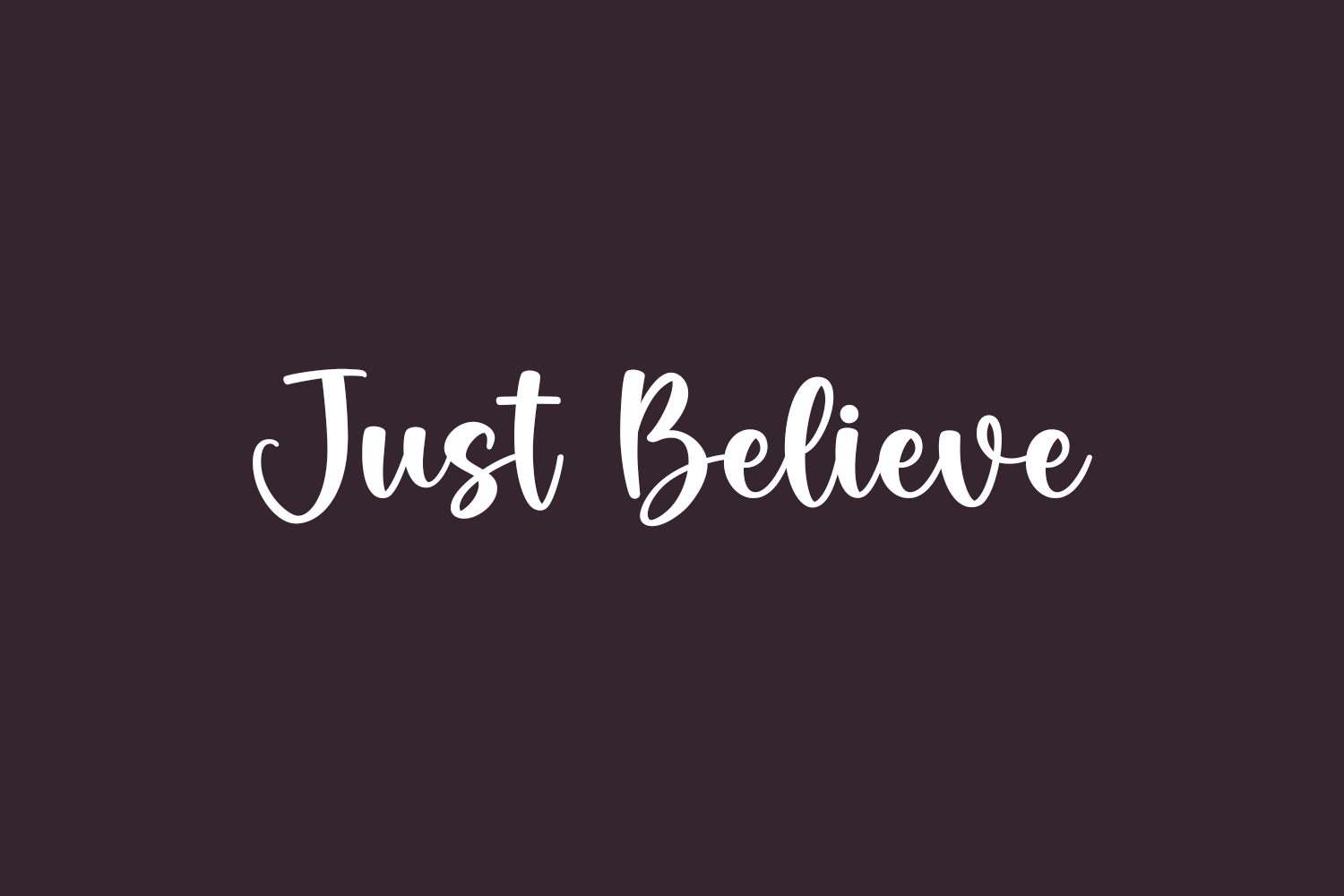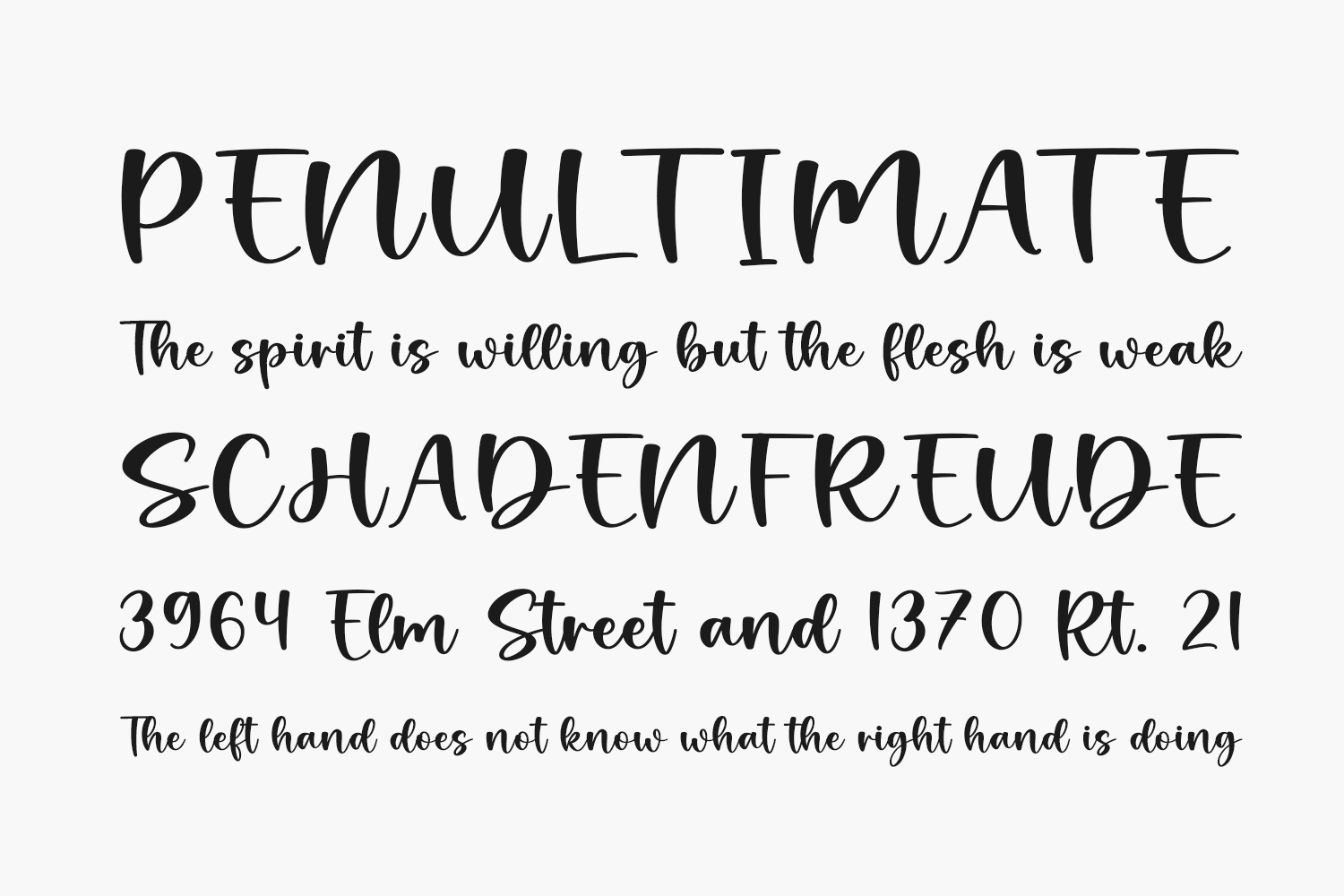
Meet Just Believe Free Font – a graceful, sophisticated, and flowing handwritten font. Boasting beautifully balanced characters, this typeface effortlessly complements a diverse range of designs, making it a versatile choice for your creative projects. Download the font for free if you need it for personal use or purchase the full version for commercial use.
Designed by Graphix Line Studio